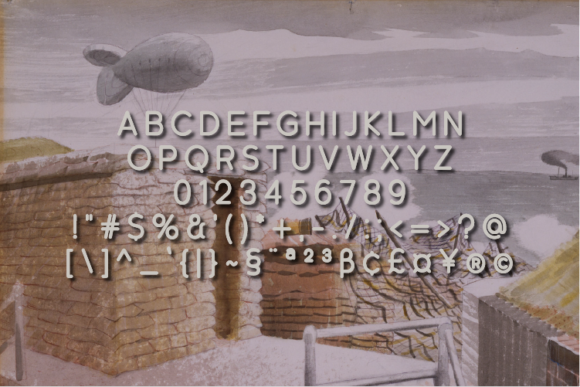
Firestage Font: Elevate Your Design with a Perfect Balance of Smooth and Sharp
In the world of typography, fonts play a crucial role in bringing a design project to life. A well-chosen font can make all the difference, conveying the right tone and personality to capture the audience’s attention. If you’re a designer or crafter looking for a font that combines classic inspiration with a unique twist, look no further than Firestage Font. In this article, we’ll explore the features and benefits of Firestage, and how it can elevate your design projects to new heights.
The Inspiration Behind Firestage Font
Firestage Font draws inspiration from classic typography, a style that has stood the test of time. Classic typography is characterized by its elegant and sophisticated feel, often featuring serif fonts with intricate details. Firestage takes this timeless style and infuses it with a modern twist, creating a unique and captivating font that will set your designs apart.
The Unique Style of Firestage Font
So, what sets Firestage Font apart from other fonts? The answer lies in its perfectly balanced mix of smooth and sharp elements. The font features smooth curves and rounded edges, which provide a touch of elegance and sophistication. At the same time, the sharp lines and pointed tips add a sense of edginess and modernity. This unique blend of styles makes Firestage Font versatile and adaptable, suitable for a wide range of design projects.
Perfectly Balanced: The Key to Firestage’s Success
The balance between smooth and sharp elements is what makes Firestage Font so effective. The smooth curves provide a sense of fluidity and movement, while the sharp lines add a sense of precision and definition. This balance creates a visually appealing contrast that draws the eye and holds attention. Whether you’re designing a logo, brochure, or website, Firestage Font will help you create a design that is both aesthetically pleasing and effective.
Complementing Any Design Need
One of the greatest strengths of Firestage Font is its versatility. The font’s unique style and balanced mix of smooth and sharp elements make it suitable for a wide range of design projects. Whether you’re working on a corporate brand identity, a creative marketing campaign, or a personal craft project, Firestage Font will complement your design perfectly. The font’s classic inspiration and modern twist ensure that it will work well with a variety of design styles, from minimalist to elaborate.
So, what are the benefits of using Firestage Font for designers and crafters? Here are just a few:
- Unique style: Firestage Font offers a distinctive style that will set your designs apart from the crowd.
- Versatility: The font’s balanced mix of smooth and sharp elements makes it suitable for a wide range of design projects.
- Elegance and sophistication: Firestage Font’s classic inspiration and smooth curves add a touch of elegance and sophistication to any design.
- Easy to read: The font’s clear and precise lines ensure that it is easy to read, even at small sizes.
In conclusion, Firestage Font is a unique and versatile font that brings a perfect balance of smooth and sharp elements to any design project. With its classic inspiration and modern twist, Firestage Font is suitable for a wide range of design needs, from corporate brand identities to personal craft projects. Whether you’re a designer or crafter, Firestage Font is a great choice for anyone looking to elevate their designs and create a lasting impression.